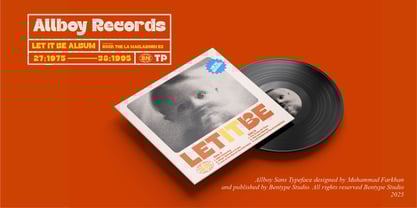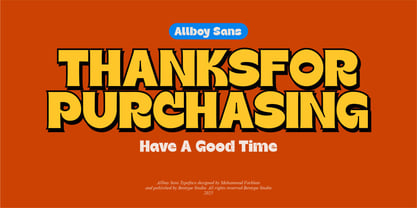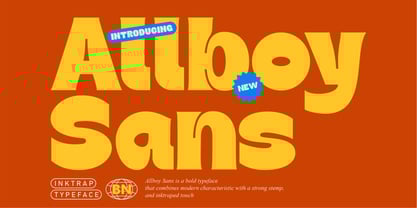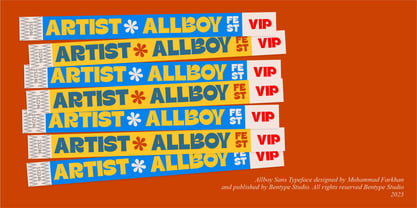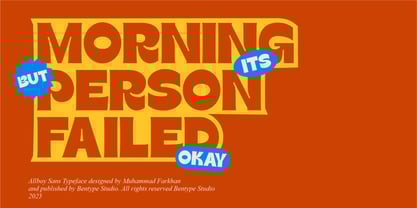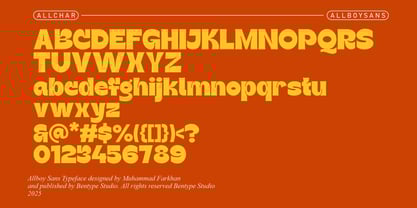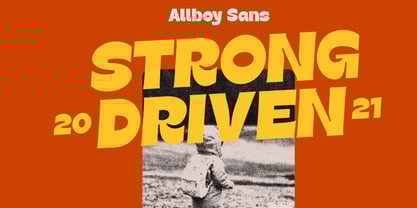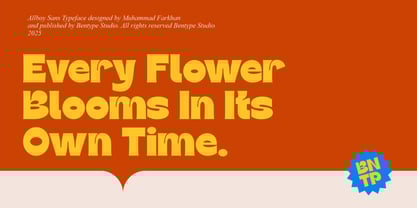
Allboy
by Bentype
The Allboy Font Family was designed by Muhammad Farkhan and published by Bentype. Allboy contains 1 styles.
Allboy Sans is Bold font style or font weight that is characterized by exceptionally thick and heavy letterforms. It is a bolder and more prominent version of a particular typeface compared to its regular, bold, or semi-bold counterparts. Bold fonts are often used for emphasis, headlines, or to grab the reader's attention due to their substantial and heavy appearance. Suitable for use as a headline, poster design, tshirt, event design, etc.